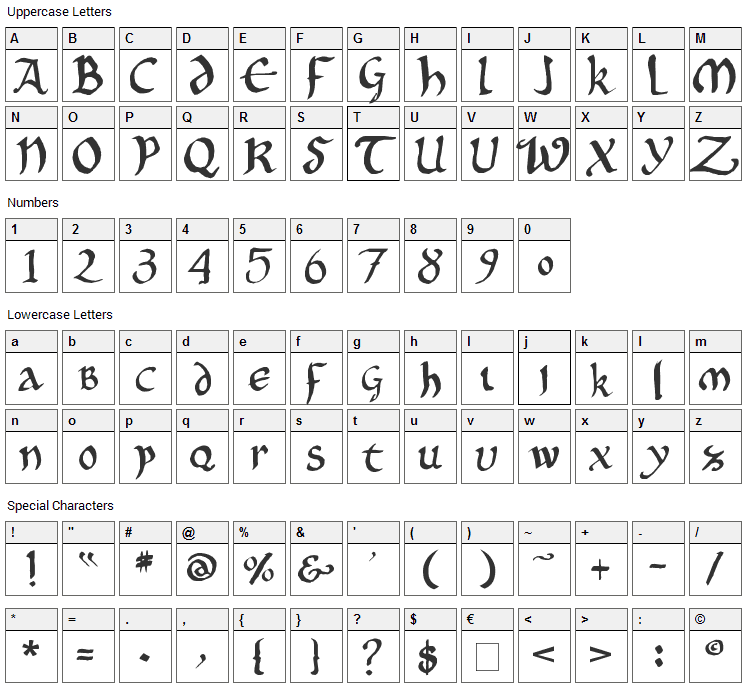
Onciale PhF Font
Font Name:Onciale PhF
Developer:La Salome Prod.
Category:Gothic > Celtic
A manuscript unciale set, as of VIIth century, from my hand writing with full set of accents and signs that can be used for most european languages.
• Designer:Ph Fromont born 1949